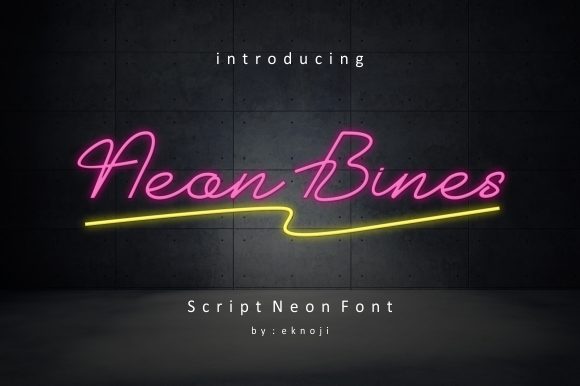
Welcome to the world of Neon Bines, a script font that will captivate your senses and elevate your designs to new heights. This font is like a dance on paper, with its smooth curves and elegant lines that flow together seamlessly. It's as if each letter were handwritten with the utmost care, giving your designs a personal touch that will leave a lasting impression.
Neon Bines is a visual masterpiece, a font that will make your words shine. Its unique style is perfect for creating eye-catching logos, stunning posters, and unforgettable branding materials. Imagine your designs transformed with Neon Bines, radiating with an energy that will draw people in and leave them mesmerized.
Let Neon Bines ignite your creativity and take your designs to the next level. Whether you're a seasoned designer or just starting out, this font will empower you to create captivating designs that will make a statement. Experience the magic of Neon Bines today!
Here are just a few reasons why Neon Bines is the perfect choice for your next project:
* **Captivating Style:** Neon Bines possesses an enchanting style that will captivate your audience and leave them spellbound. Its unique design is sure to make your designs stand out from the crowd.
* **Versatile Application:** Neon Bines shines in a variety of applications, from logos and posters to branding materials and social media graphics. Its versatility makes it a must-have font for any designer's toolbox.
* **Effortless Creativity:** With Neon Bines, creativity flows effortlessly. Its intuitive design makes it easy to use, allowing you to focus on your creative vision without getting bogged down in technical details.
* **Unleash Your Inner Artist:** Neon Bines is more than just a font; it's an invitation to unleash your inner artist. Let your imagination soar as you create designs that are truly unique and unforgettable.
* **Make a Statement:** Neon Bines is a statement font, a font that will make your designs speak volumes. Use it to create designs that convey your message with power and impact.
Don't settle for ordinary fonts. Choose Neon Bines and experience the difference. Let your designs shine with the magic of Neon Bines!